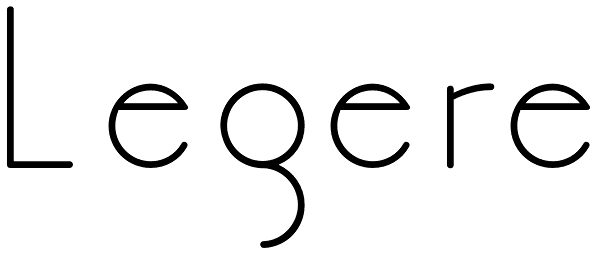
Legere
Legere is a slim, light and decorative font, based on the idea to work as close as possible on the geometric forms of the circle, the triangle and the square. As a natural conclusion the number of angles is limited. Legere comes in these weights...
Legere Thin
Legere
Legere Light
Legere Deko